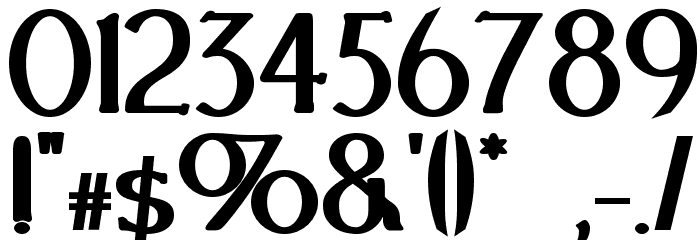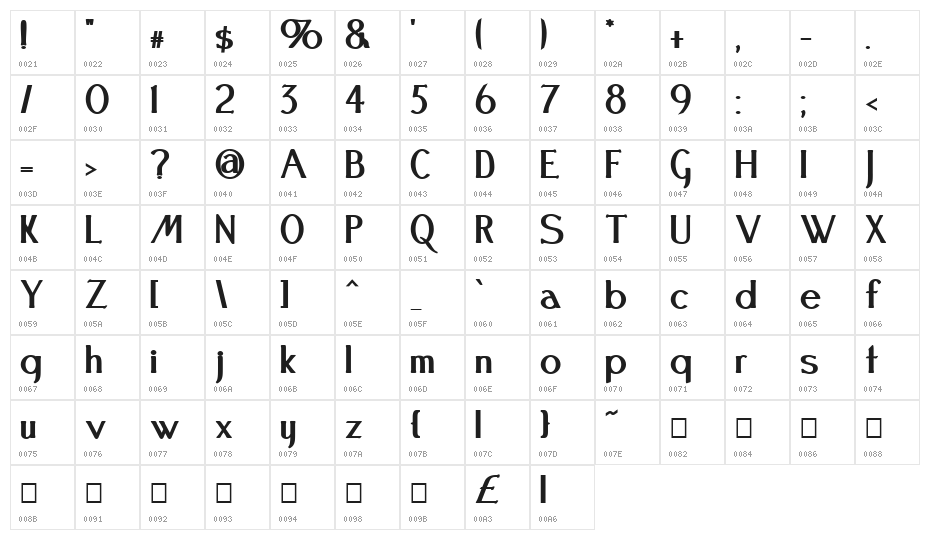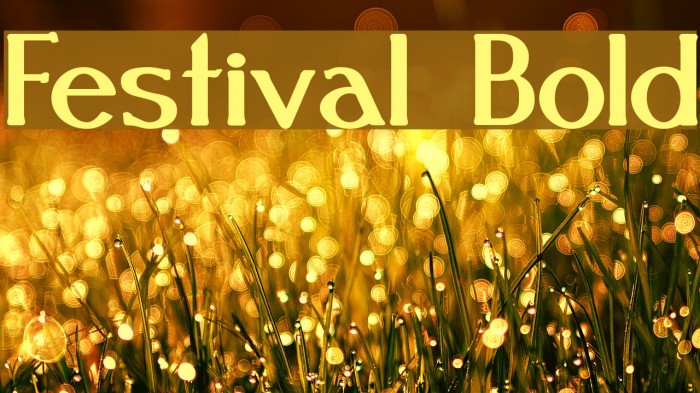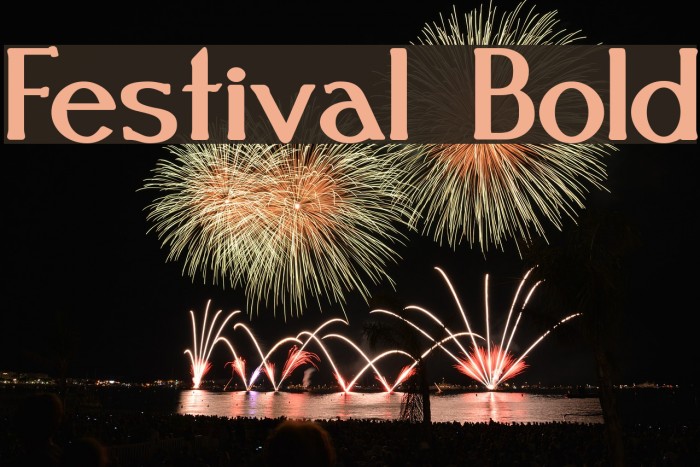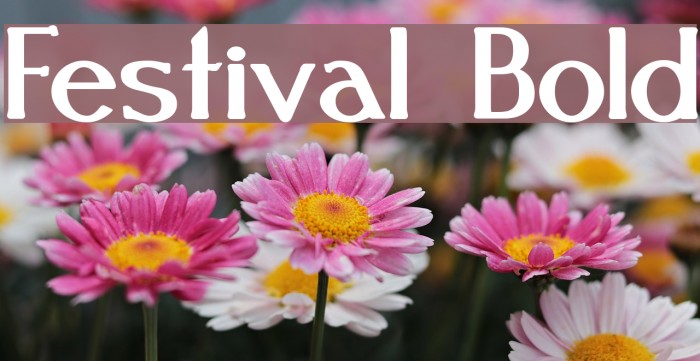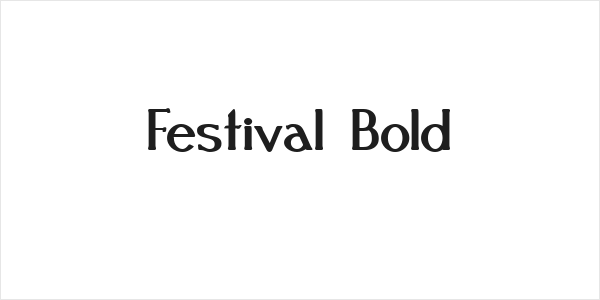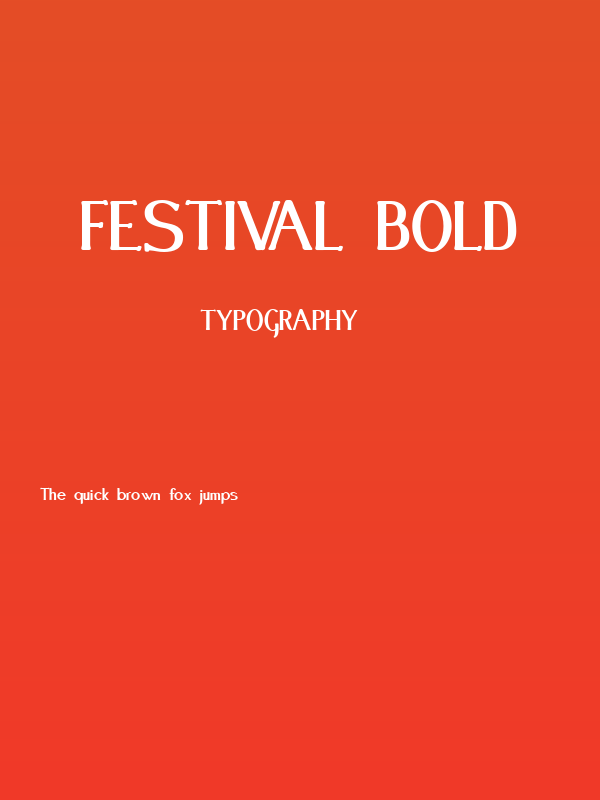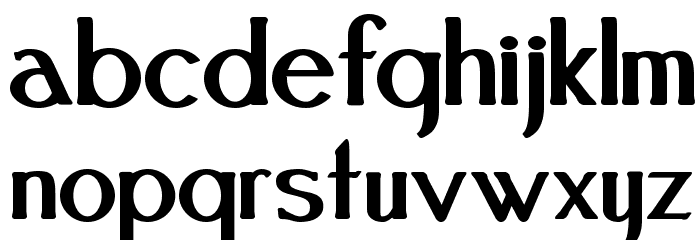
Festival Bold Font
Festival Bold Description
This font features a bold and dynamic style with a distinct flair, characterized by its thick strokes and slightly condensed letterforms. The uppercase letters exhibit a unique blend of sharp angles and smooth curves, giving them a lively and festive appearance. The lowercase letters maintain a consistent weight, complementing the uppercase with their rounded and approachable design. Numbers and special characters follow the same bold aesthetic, ensuring uniformity across all glyphs. The font's overall design is both playful and assertive, making it suitable for eye-catching displays and creative projects.
| Proposed Projects | Ideal for event posters, party invitations, branding for festive products, and any project requiring a lively and bold typeface. |